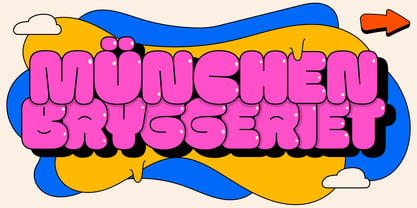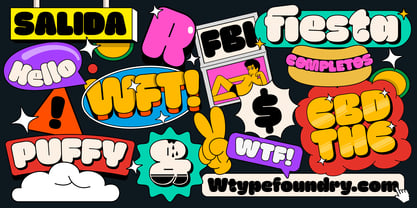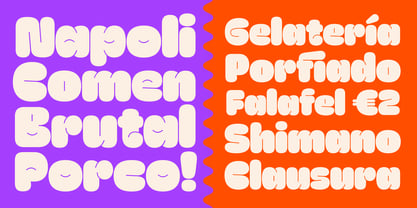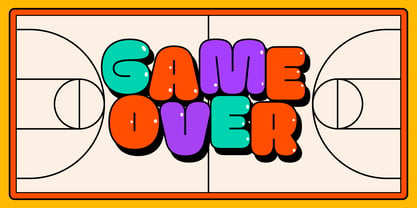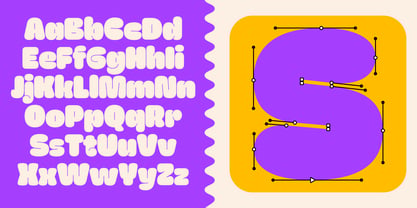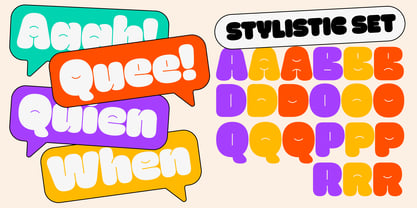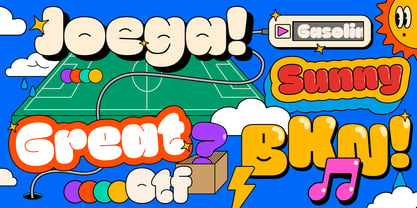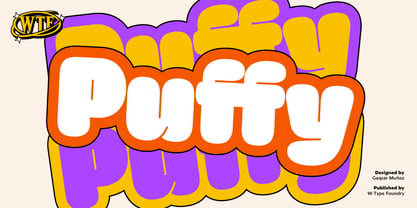
Puffy
by W Type Foundry
The Puffy Font Family was designed by Gaspar Muñoz and published by W Type Foundry. Puffy contains 1 styles. More about this family
Puffy is an exploration into pillowy roundness. Friendly and soft, Puffy looks almost like a cloud. It's so fat that its counterforms have been reduced to one line.
The perfect choice for design projects looking to convey a message with sympathy.
This font is an eye-catcher, designed for headlines that don't want to go unnoticed. Puffy is one of a kind.
Although it's one weight, it holds a surprise! Puffy's stylistic options transform its counterforms to give it a double personality, from an air of joy to more of a melancholy feel.
Designers: Gaspar Muñoz
Foundry: W Type Foundry